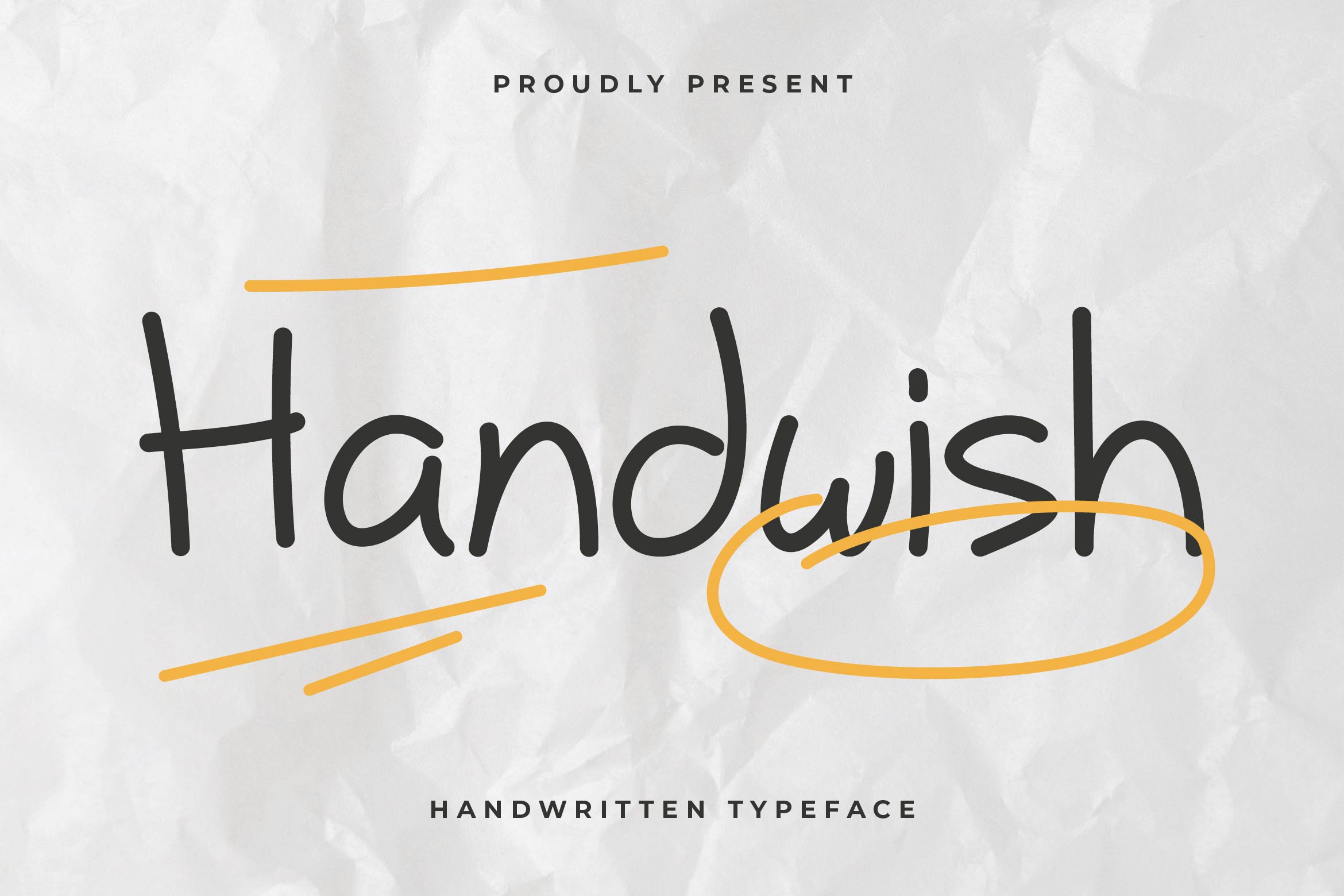
- Handwish Handwritten Typeface
Handwish is a charming handwritten font that brings a personal, artistic touch to your designs. With its flowing strokes, playful rhythm, and naturally imperfect lines, Handwish feels like a note written from the heart — warm, expressive, and full of character. Perfect for branding, social media graphics, invitations, packaging, and creative projects that need a human feel.
Crafted to look effortlessly stylish, Handwish includes uppercase and lowercase letters, multilingual support, and a lovely set of ligatures and alternates that enhance its handwritten authenticity. Whether you’re writing a heartfelt quote, designing a lifestyle brand, or crafting cozy product labels, Handwish adds a joyful, handcrafted spirit to every word.
Let your message feel real, kind, and beautifully made — with Handwish, the handwritten font that turns words into a warm gesture.